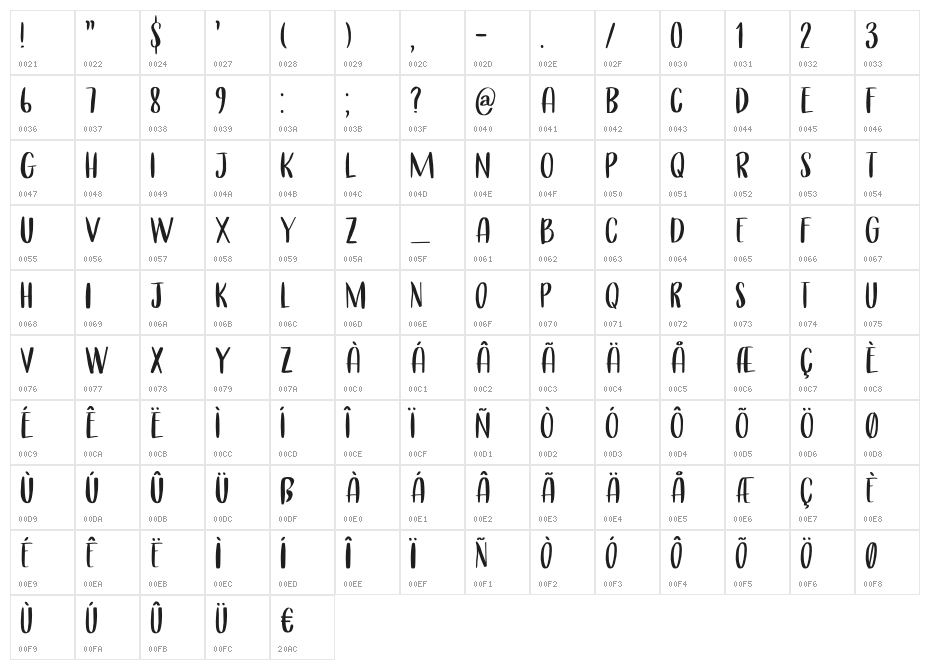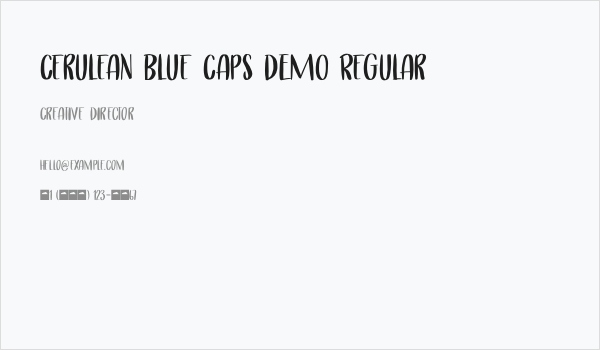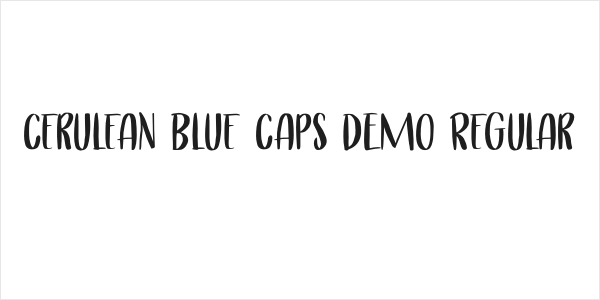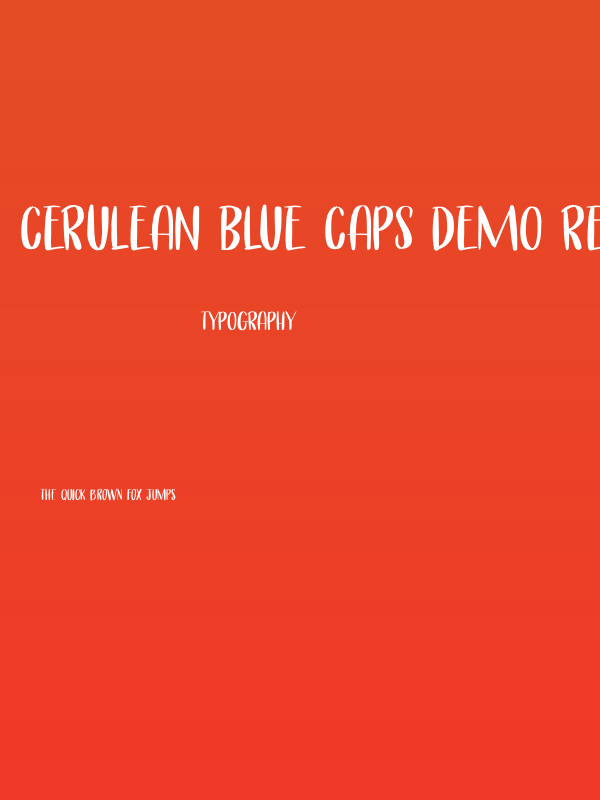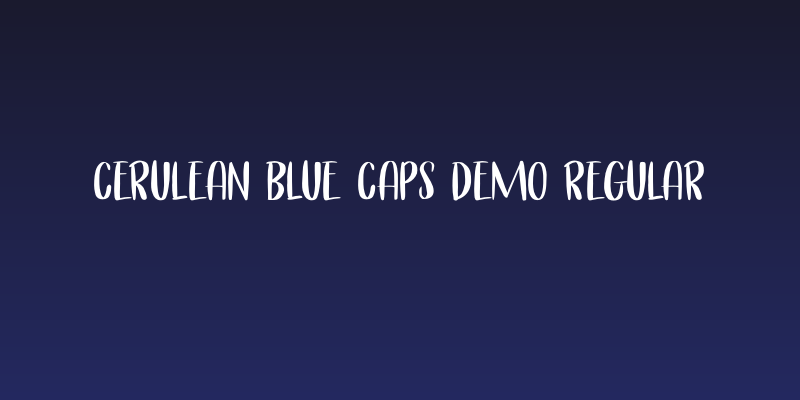
Cerulean Blue Caps DEMO Regular Font
Cerulean Blue Caps DEMO Regular Description
This font features a playful and energetic style with a handwritten appearance. The letters are bold and slightly slanted, giving a sense of movement and dynamism. The strokes are thick and consistent, with a slight variation that adds a touch of personality. The uppercase and lowercase letters maintain a cohesive look, while the numbers are clear and legible. The special characters are well-integrated, maintaining the overall aesthetic. This font is ideal for projects that require a fun and informal touch, such as children's books, posters, or creative branding.
| Proposed Projects | Ideal for children's books, posters, creative branding, and informal invitations. |